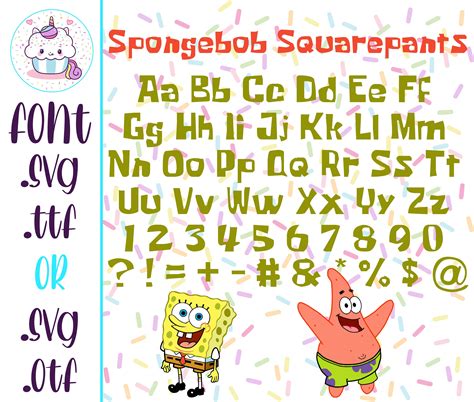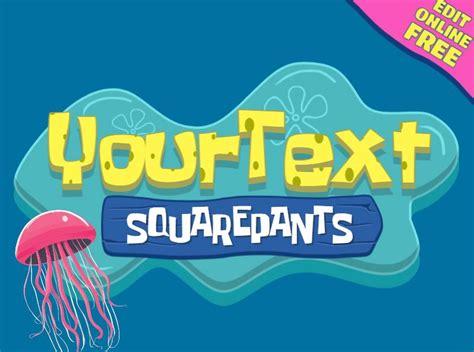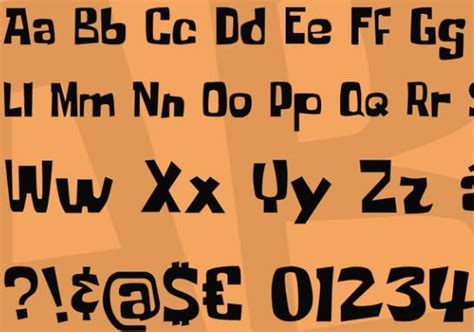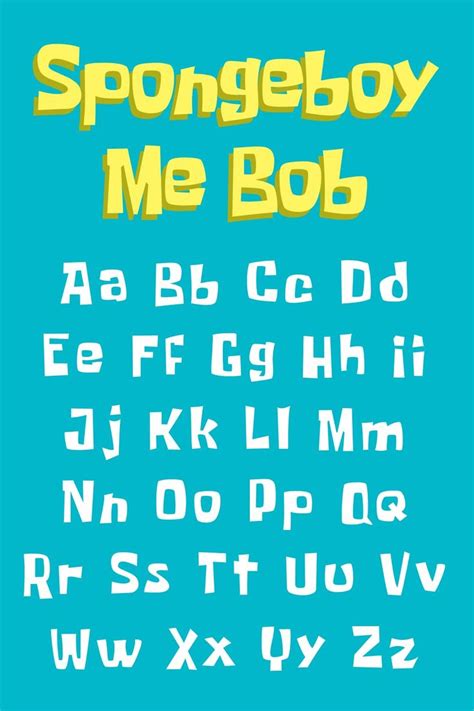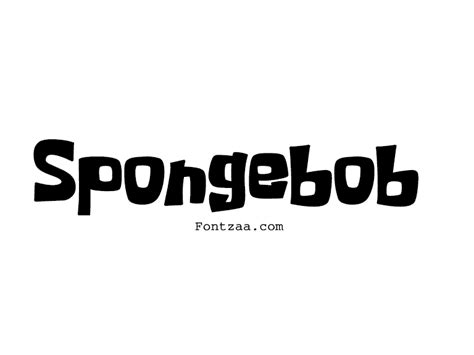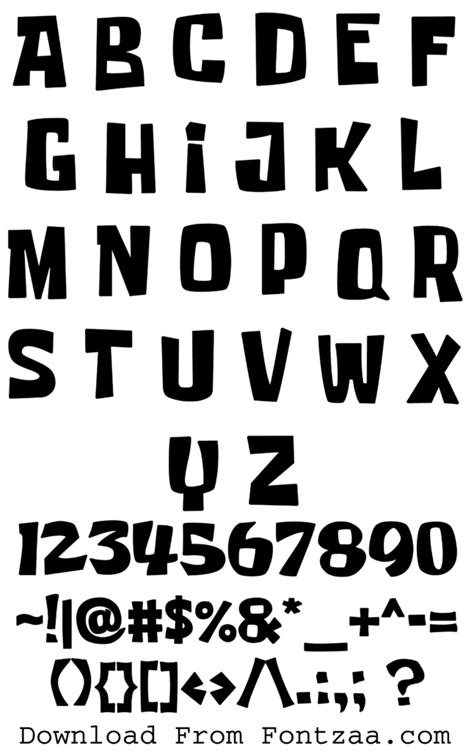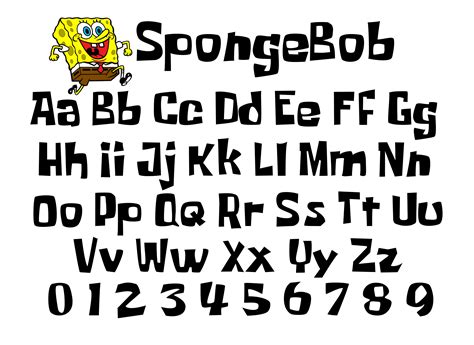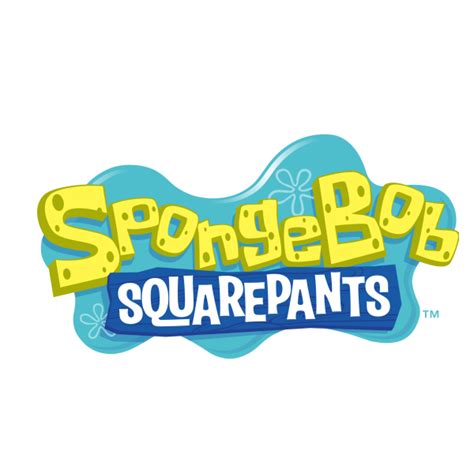
SPONGEBOB SQUAREPANTS FONT
The Spongebob Squarepants font is a popular and distinctive font inspired by the beloved animated series, Spongebob Squarepants. This font captures the playful and whimsical nature of the show, with its unique letterforms and quirky style. It has become a favorite among designers and enthusiasts who want to add a touch of fun and nostalgia to their projects.
The font is designed to mimic the hand-drawn, cartoonish style of the show, with its bold and rounded letters. It includes a range of special characters and symbols, such as the iconic Spongebob smile and various sea creature-inspired icons, allowing users to create visually appealing and themed designs.
One of the key benefits of using the Spongebob Squarepants font is its ability to evoke a sense of childhood nostalgia and joy. It can be used in various contexts, from children's book illustrations to marketing materials for theme parks and merchandise, creating a fun and recognizable visual identity.